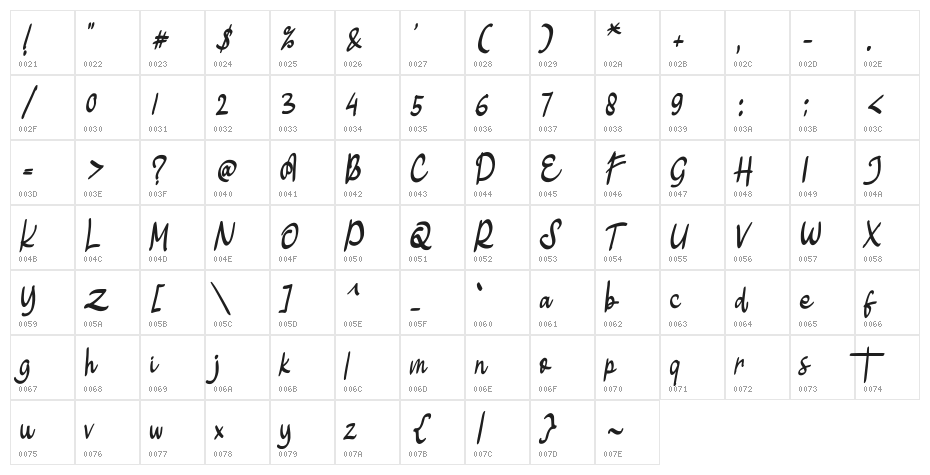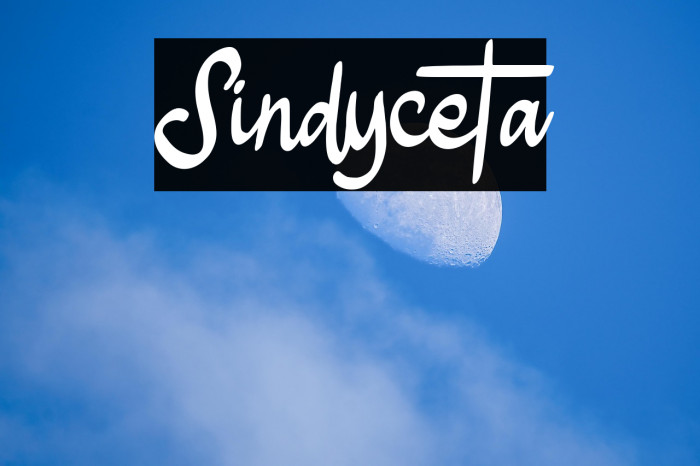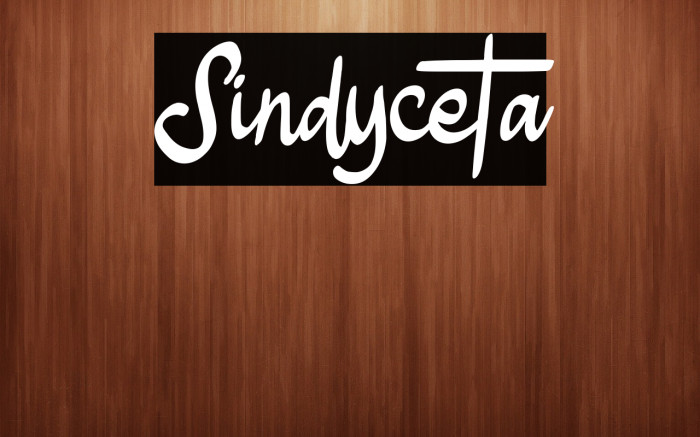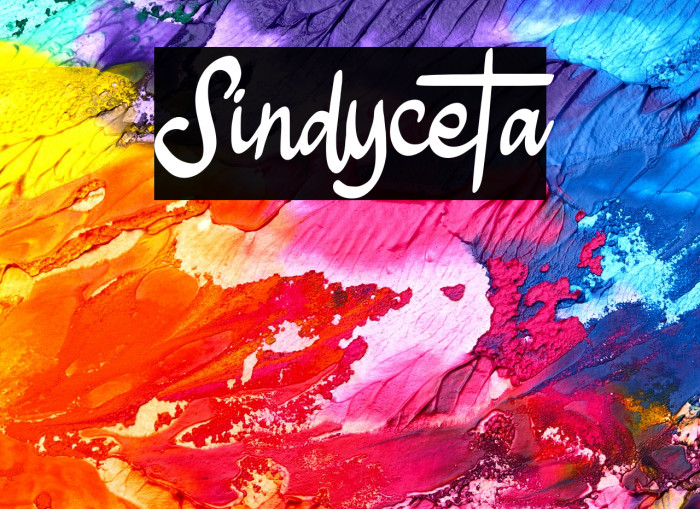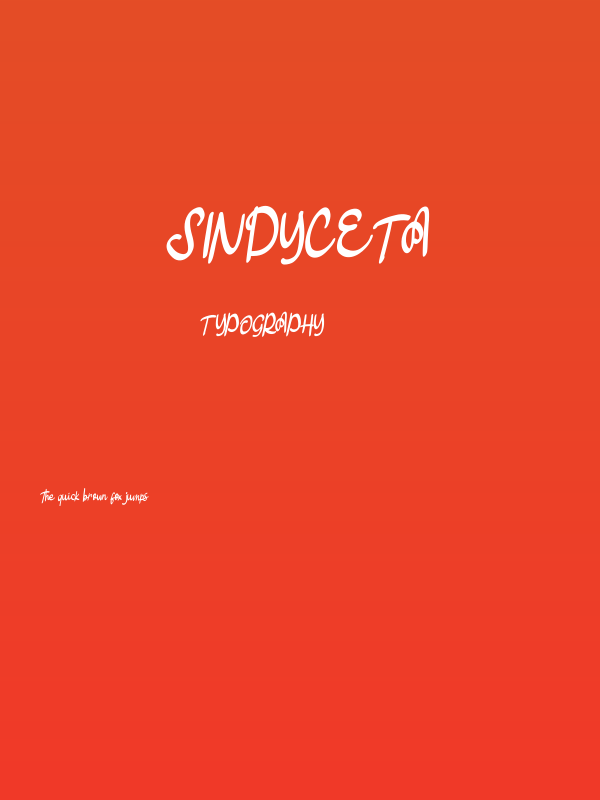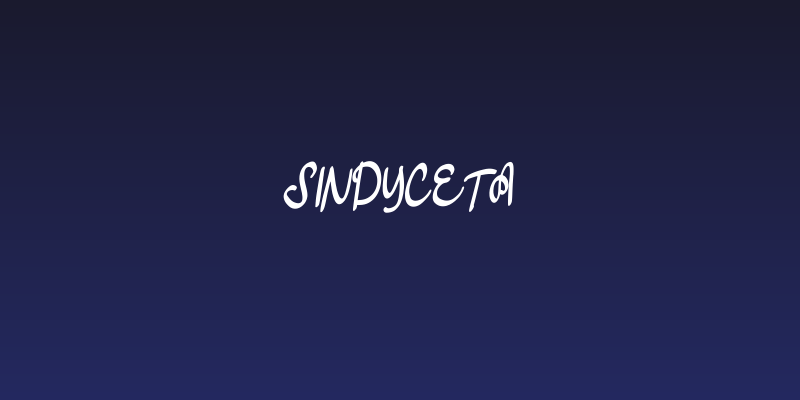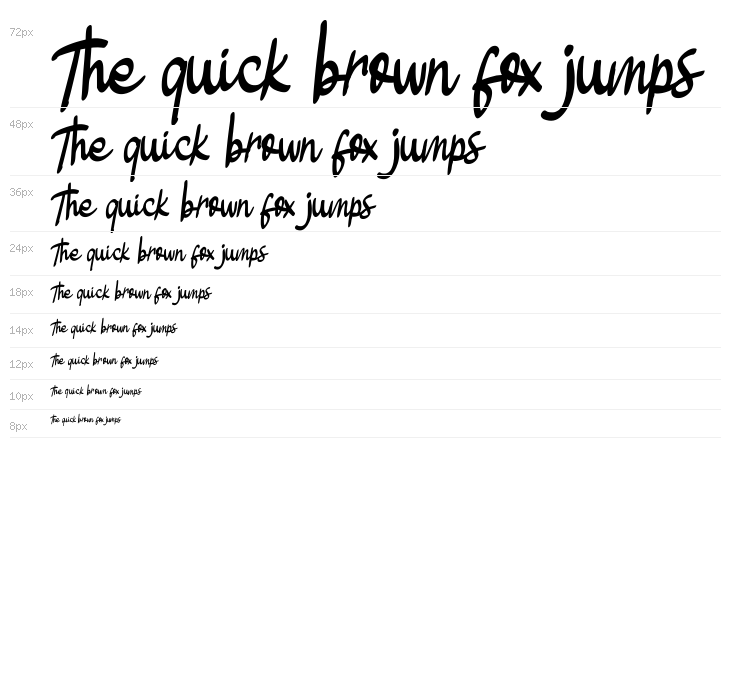
Sindyceta Font
Sindyceta Description
This font features a lively and dynamic handwritten style, characterized by its fluid and cursive strokes. The letters are slightly slanted, giving a sense of movement and energy. Uppercase letters are bold and prominent, while lowercase letters maintain a consistent flow with rounded edges. The numbers are clear and legible, matching the playful aesthetic of the alphabet. Special characters are creatively integrated, adding to the font's versatility. The overall appearance is both casual and artistic, making it suitable for projects that require a personal touch.
Overall StyleCasual, Artistic
Use CaseHeadlines, Logos, Invitations
Proposed ProjectsIdeal for greeting cards, invitations, personal branding, and creative projects that require a personal and artistic touch.